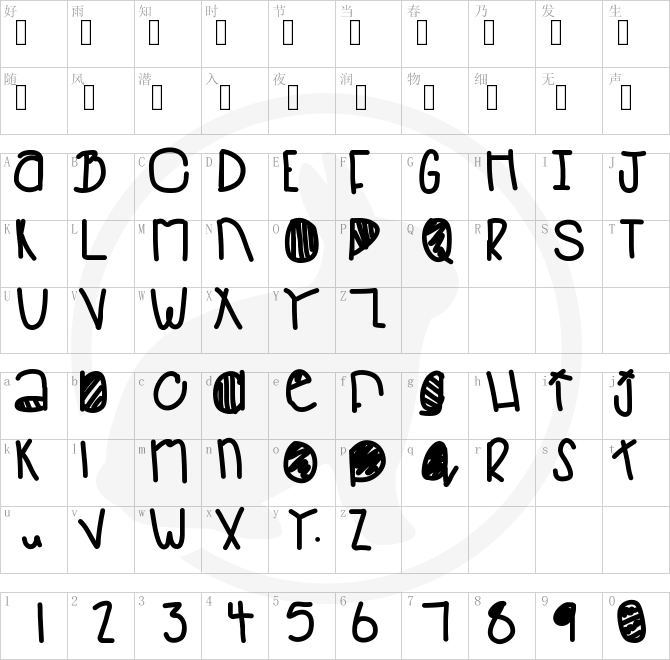
- Font Name:BabooInSpace
BabooInSpace.ttf is a very beautiful artistic font, BabooInSpace.ttf is widely used in the design and printing of various books and pictures,BabooInSpace.ttf has a strong visual impact,BabooInSpace.ttf is a commonly used font in newspapers, magazines and books, and is used in posters, e-commerce Poster design, store design, logo design, font design and other fields.BabooInSpace.